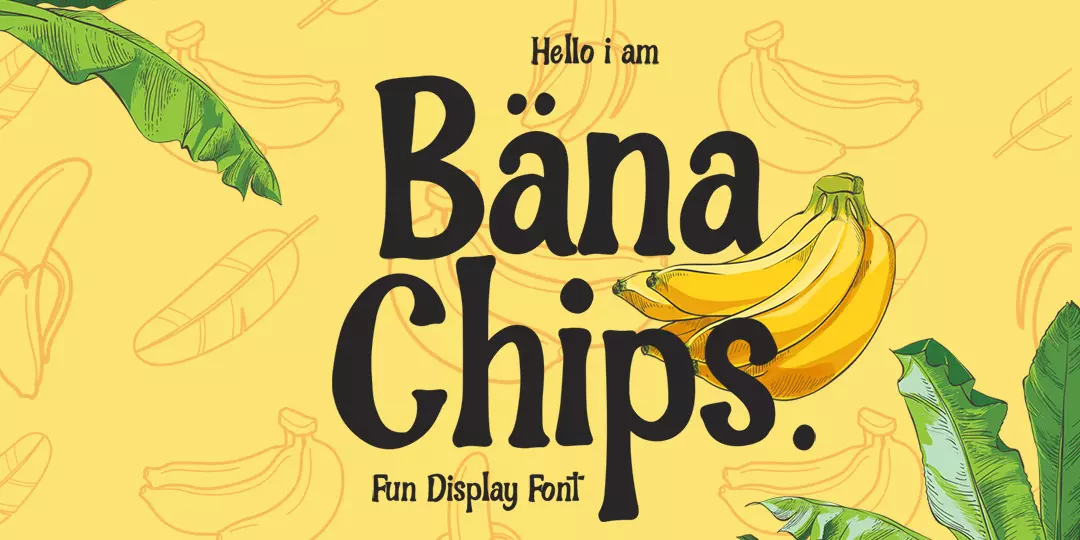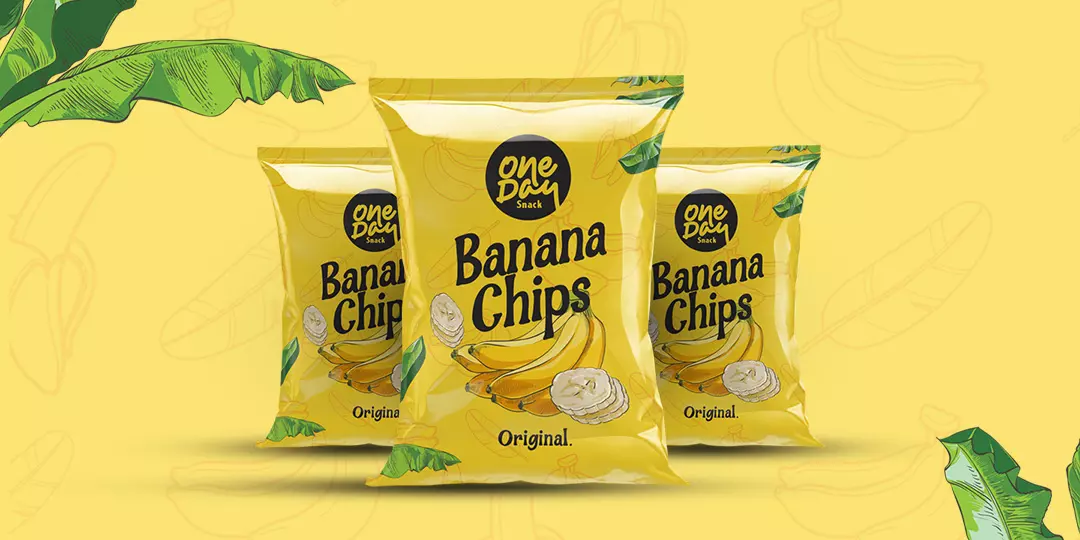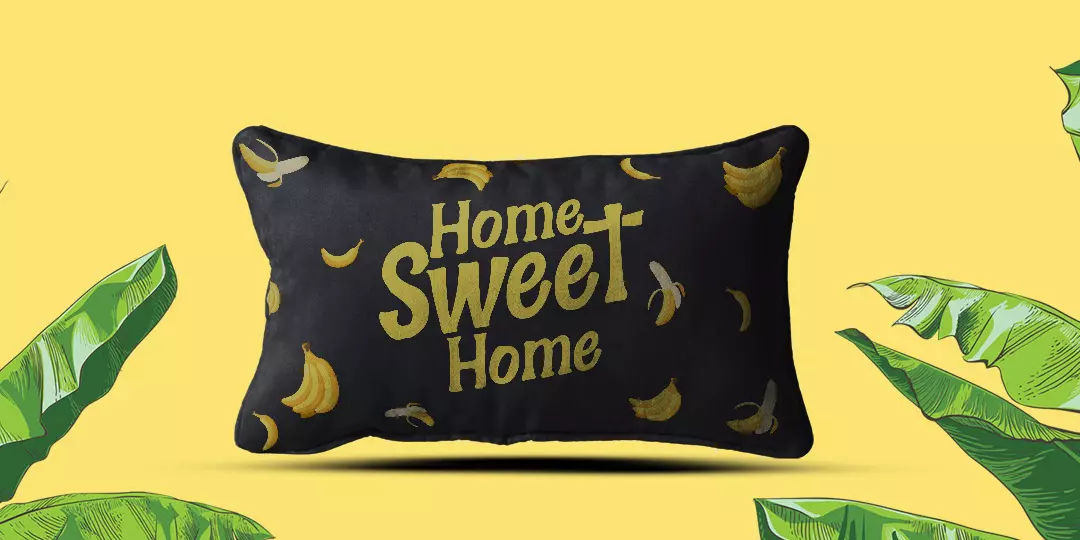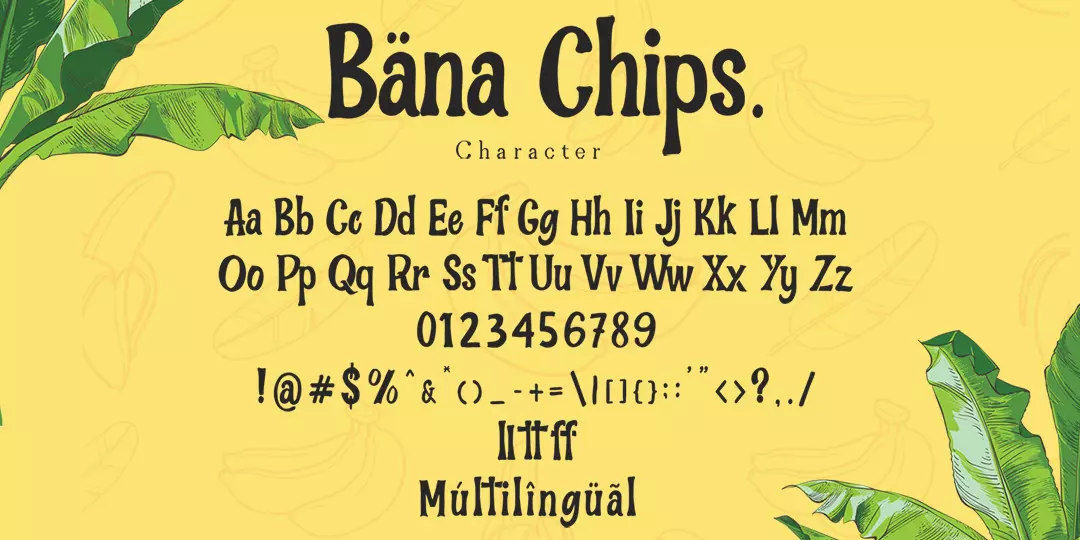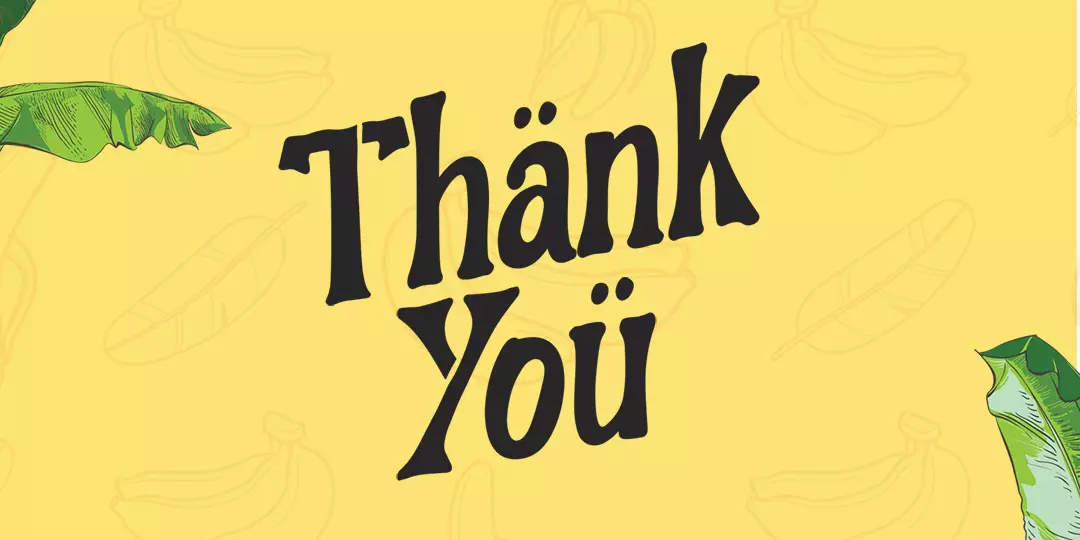
Bana Chips
Bana Chips is a font that is made very cheerful for everyone,
handwritten style that will make all your works look funnier, sweeter and very impressive. suitable for branding, posters, handycrafts and other products and also easy to use.
Bana Chips also has multilingual features.